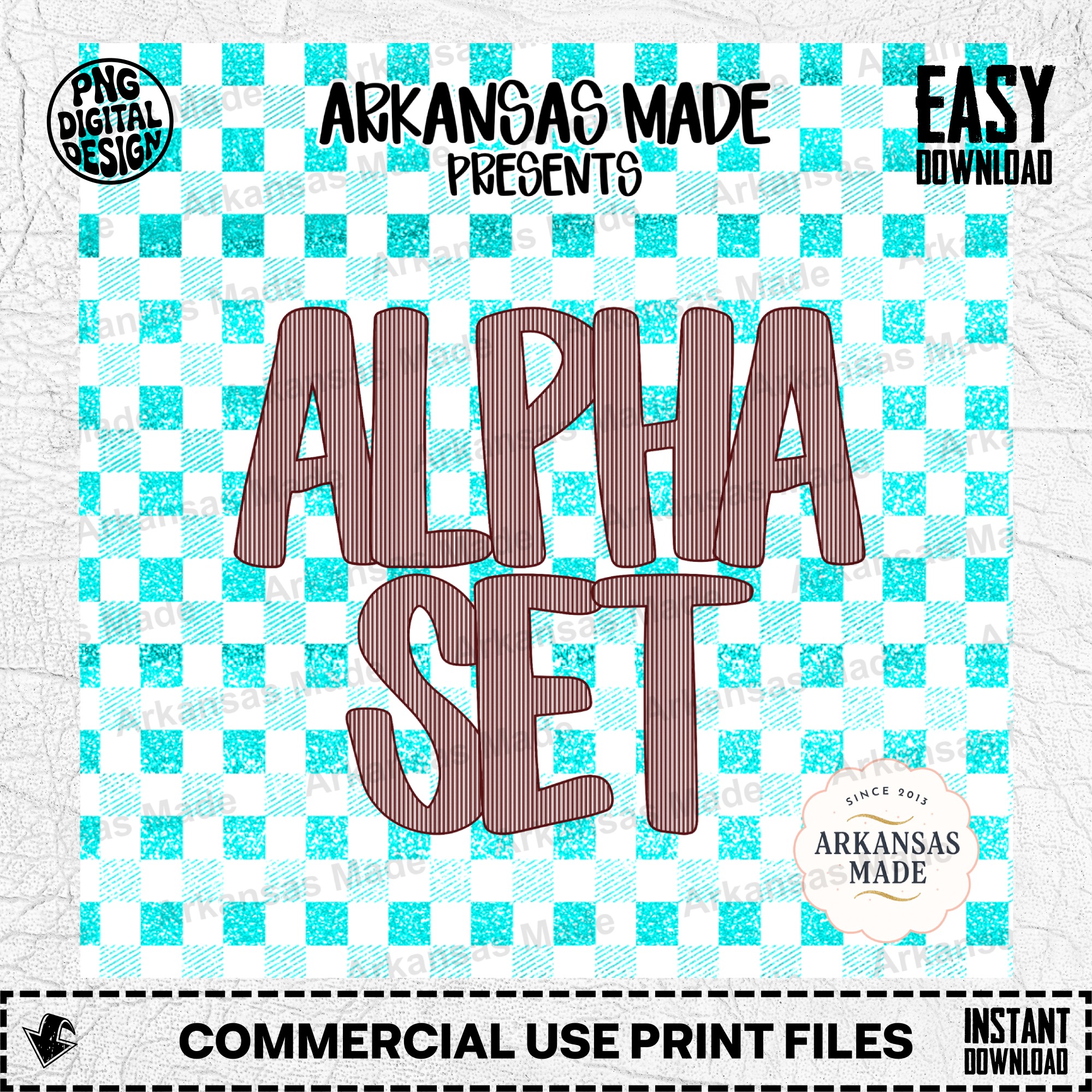
Elevate your designs with our unique Striped Alphabet PNGs! This rustic lined letter digital download is perfect for t-shirts, sublimation, and all your crafting needs. Unleash your creativity with this versatile vintage farmhouse font design, ideal for personalized gifts, home decor, or custom apparel. Crafters, small business owners, and DIY enthusiasts will love adding a cozy, classic touch to their projects for birthdays, holidays, or everyday charm.